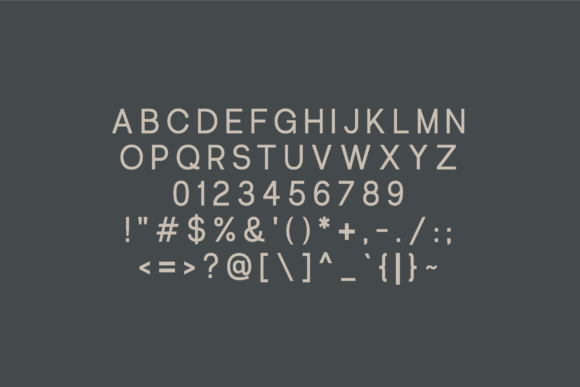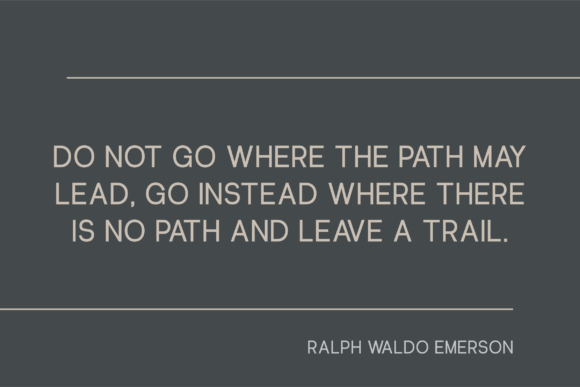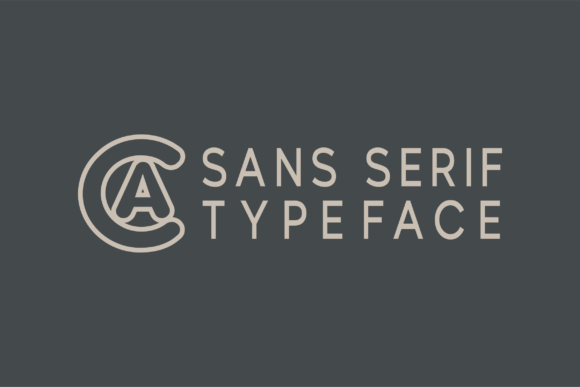
Introduction to Phobosios Font
Do you remember the moment when a font choice elevated your entire design project? For many of us, it’s that ‘aha’ moment when everything clicks into place. As designers, we’re constantly on the lookout for the perfect font to bring our creative visions to life. That’s where the Phobosios Font comes in – a game-changing, high-quality sans serif font that’s poised to revolutionize your design journey.
| 📌 Product Name | Phobosios Font |
| 👤 Author | A Christie |
With its sleek and modern design, Phobosios Font is more than just a typeface – it’s a multifaceted design resource that’s perfect for a wide range of creative projects. Whether you’re working on a high-end logo, crafting a dreamy wedding invitation, or creating impactful advertisements, Phobosios Font is the perfect companion to help you achieve your design goals.
What sets Phobosios Font apart is its versatility, making it an invaluable asset for designers who value quality and precision. From its clean and transparent background to its extensive character set, Phobosios Font is a free download that’s sure to become a trusted design companion. In this article, we’ll delve into the world of Phobosios Font and explore why it’s an essential addition to your design toolkit.
Key Features of Phobosios Font
- High-quality design resource ideal for creative projects, offering a unique and professional touch.
- Unique characteristics include a futuristic and minimalist aesthetic, making it perfect for modern and cutting-edge designs.
- Designed to be versatile and adaptable, the Phobosios Font is suitable for a wide range of creative projects, from logos and branding to typography and graphics.
Honest Review: Phobosios Font
I recently came across the Phobosios Font, and I must say it’s a great addition to any designer’s toolkit. The high-quality font is perfect for creative projects where a unique and stylish touch is required.
- What works well: ✨ The Phobosios Font is highly customizable, allowing designers to easily adjust the size, color, and style to fit their needs.
- What works well: ✨ The transparent background option allows designers to easily integrate the font into any design project.
However, there are a few limitations to consider: ⚠️ The font may not be suitable for projects that require a more traditional or formal look. Additionally, the font’s complexity can make it difficult to use for designers who are new to typography.
Overall, I’m impressed with the Phobosios Font. It’s a great design resource that can add a unique touch to any creative project. While it may not be perfect for every designer, it’s definitely worth checking out for those looking for a high-quality, free font.
Tips for Getting the Most Out of Phobosios Font
Use Phobosios Font to create a consistent brand identity across all your marketing materials. Experiment with different font sizes and colors to add visual interest to your designs. For a high-quality finish, pair Phobosios Font with a high-quality image or graphic.
Phobosios Font is perfect for creating logos, icons, and graphics for your website or social media channels. It’s also ideal for designing presentations, documents, and marketing materials. With its transparent background feature, you can create visually appealing graphics that stand out from the crowd.